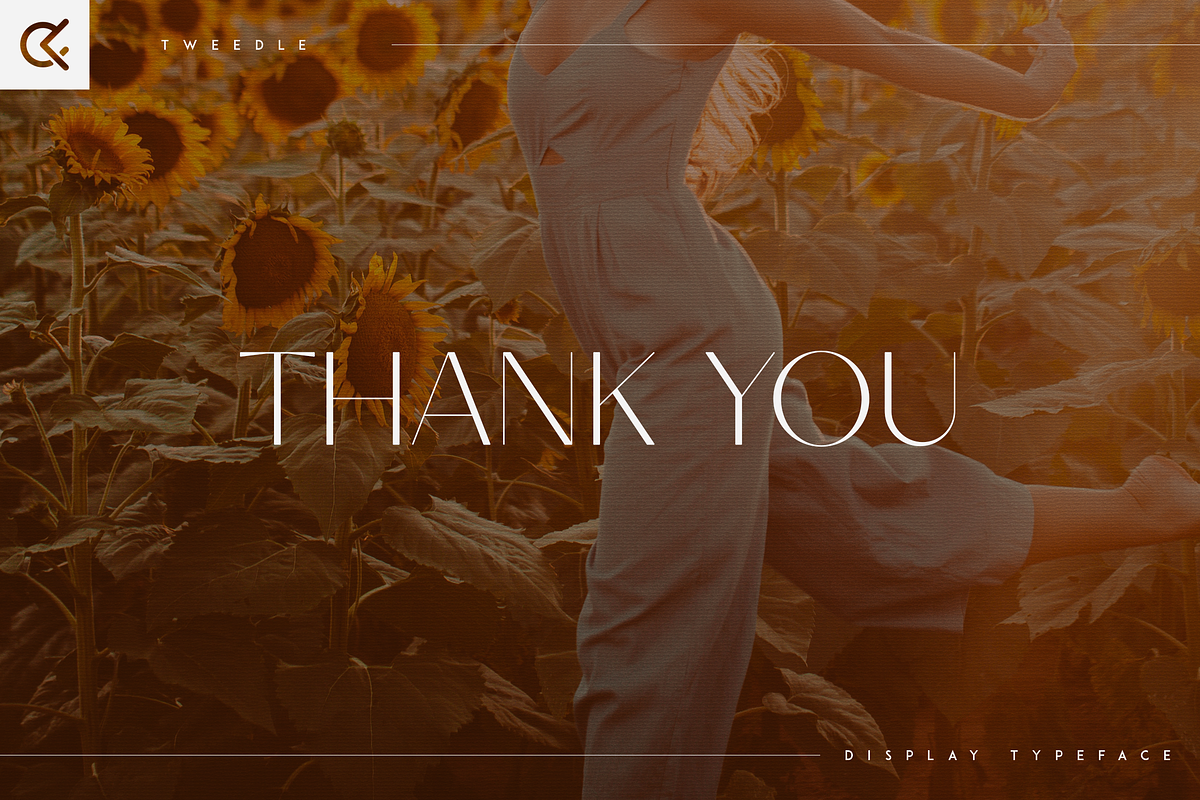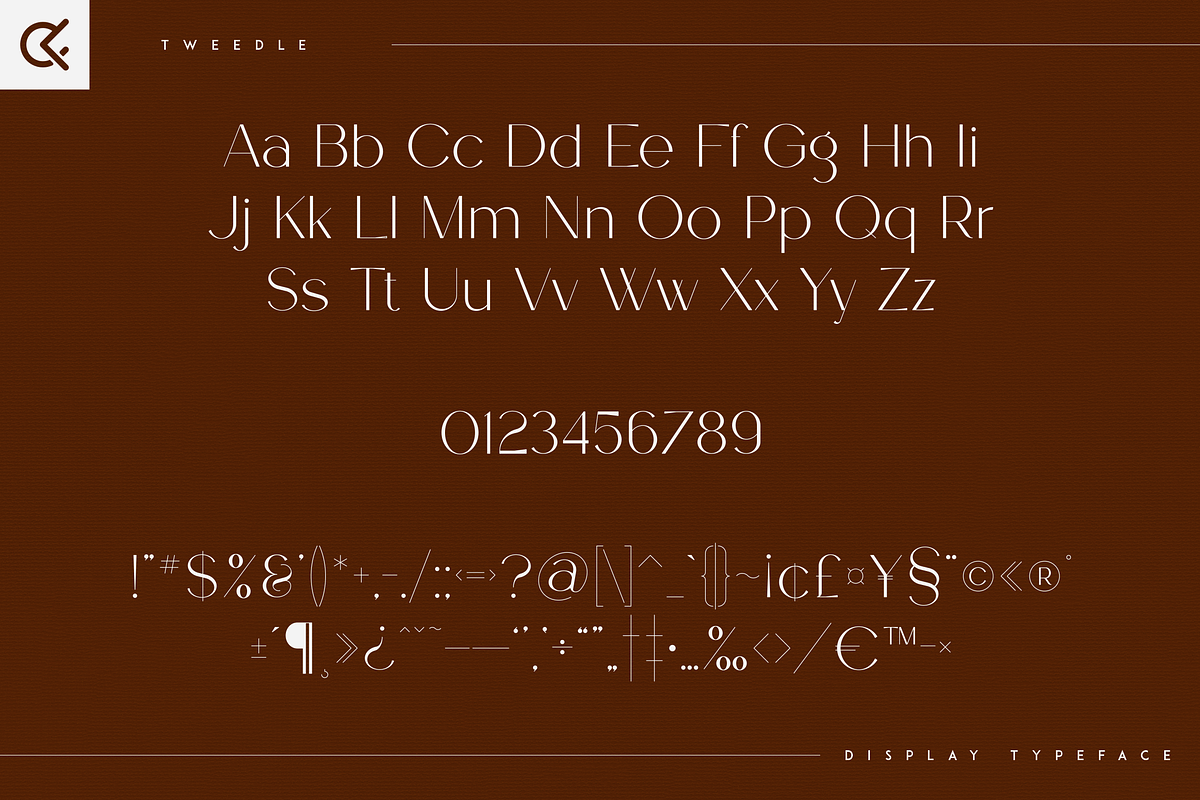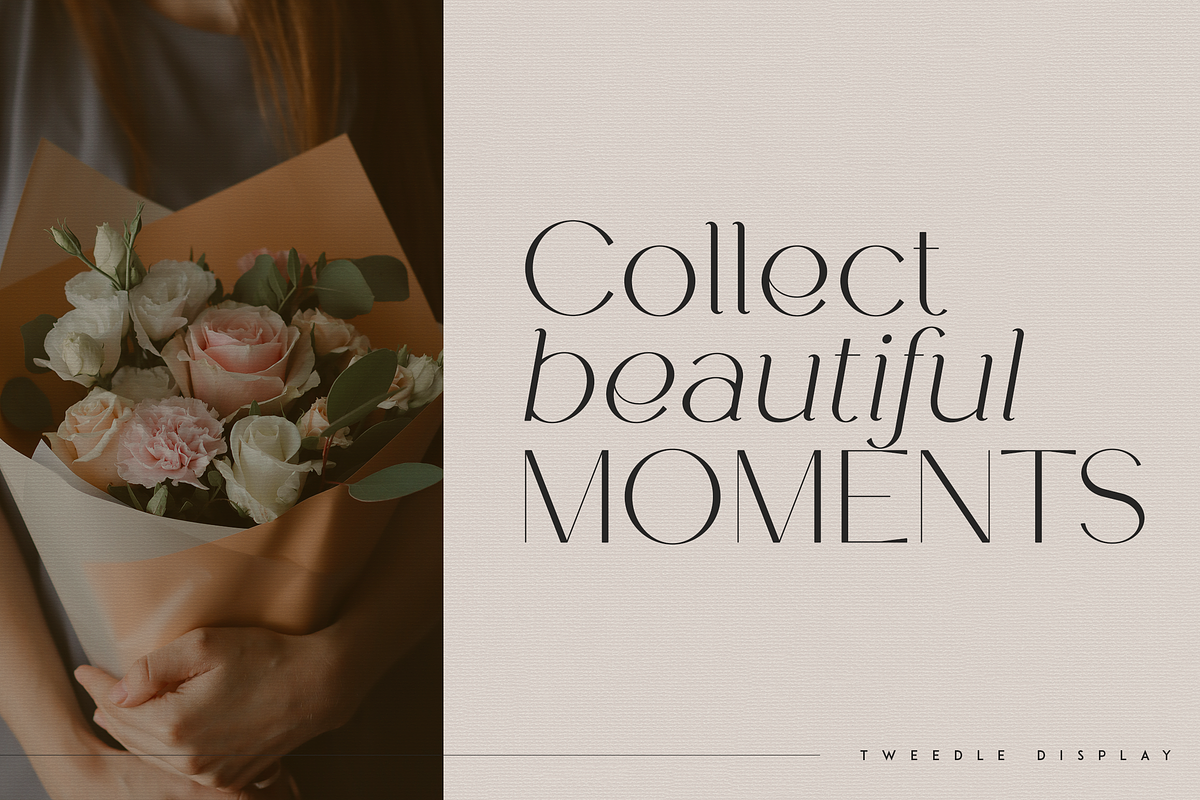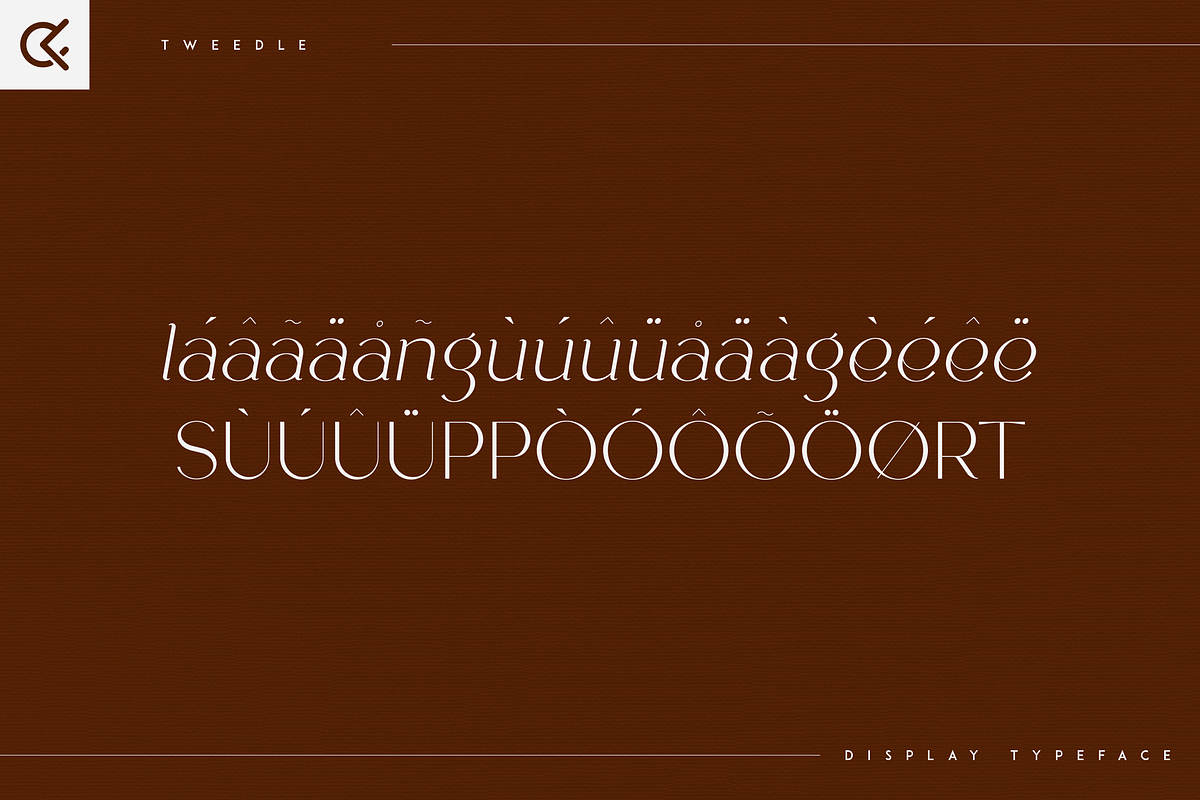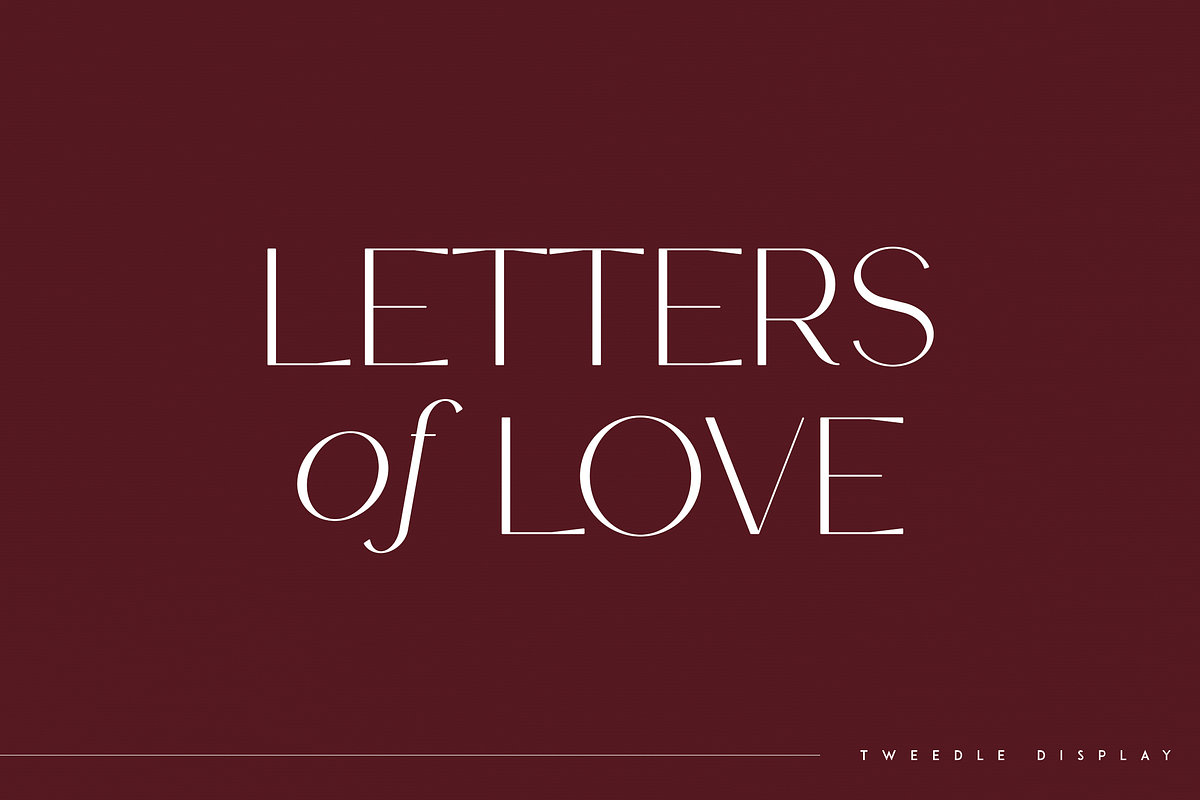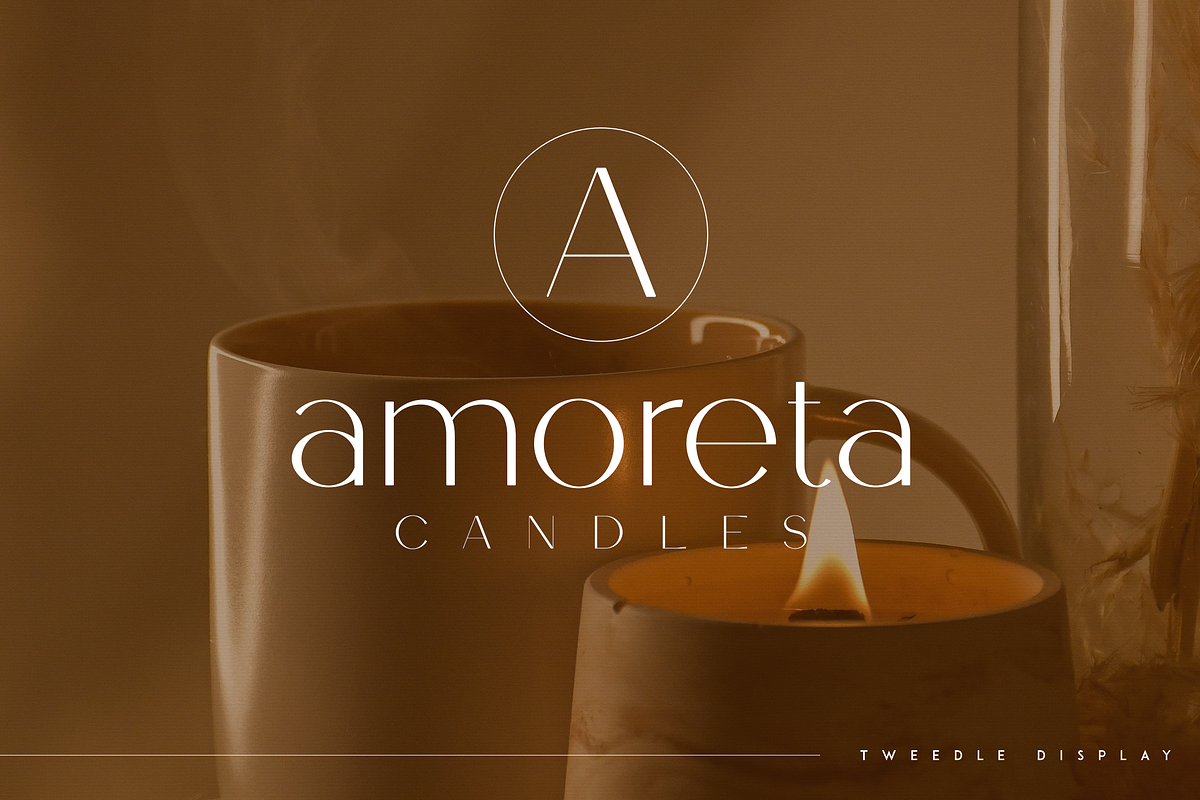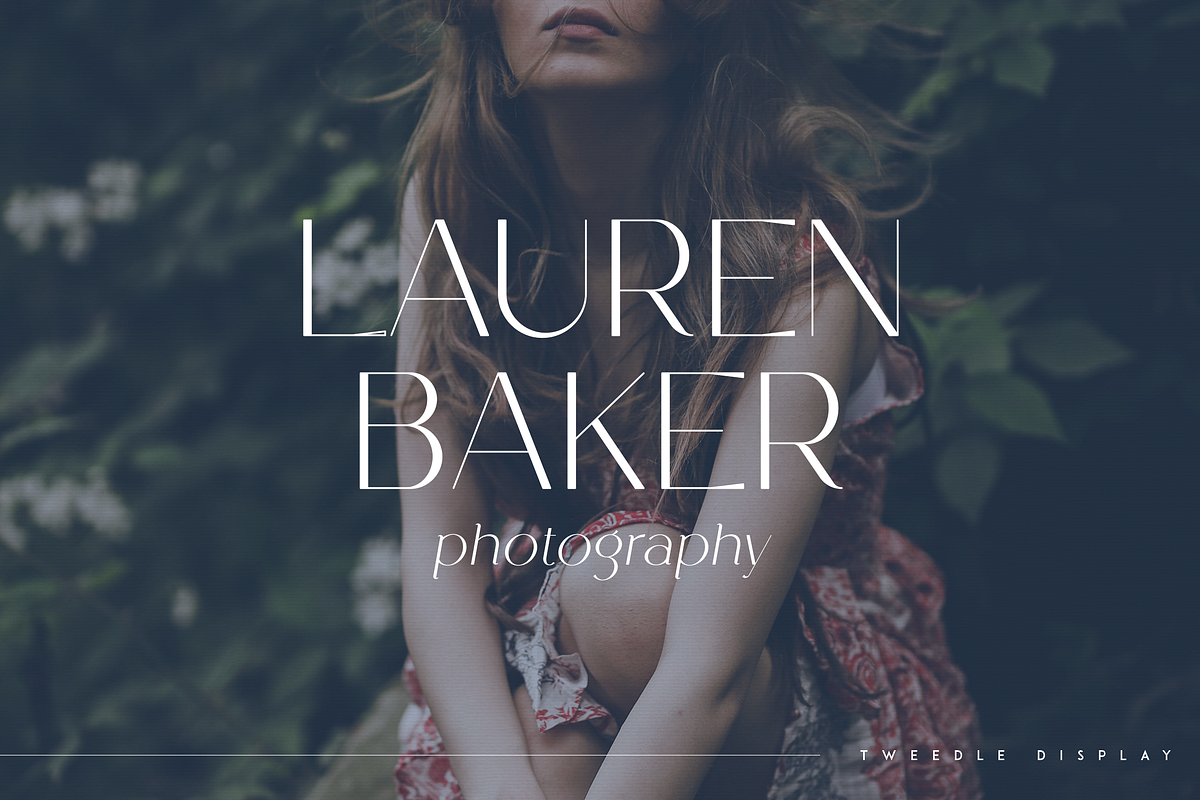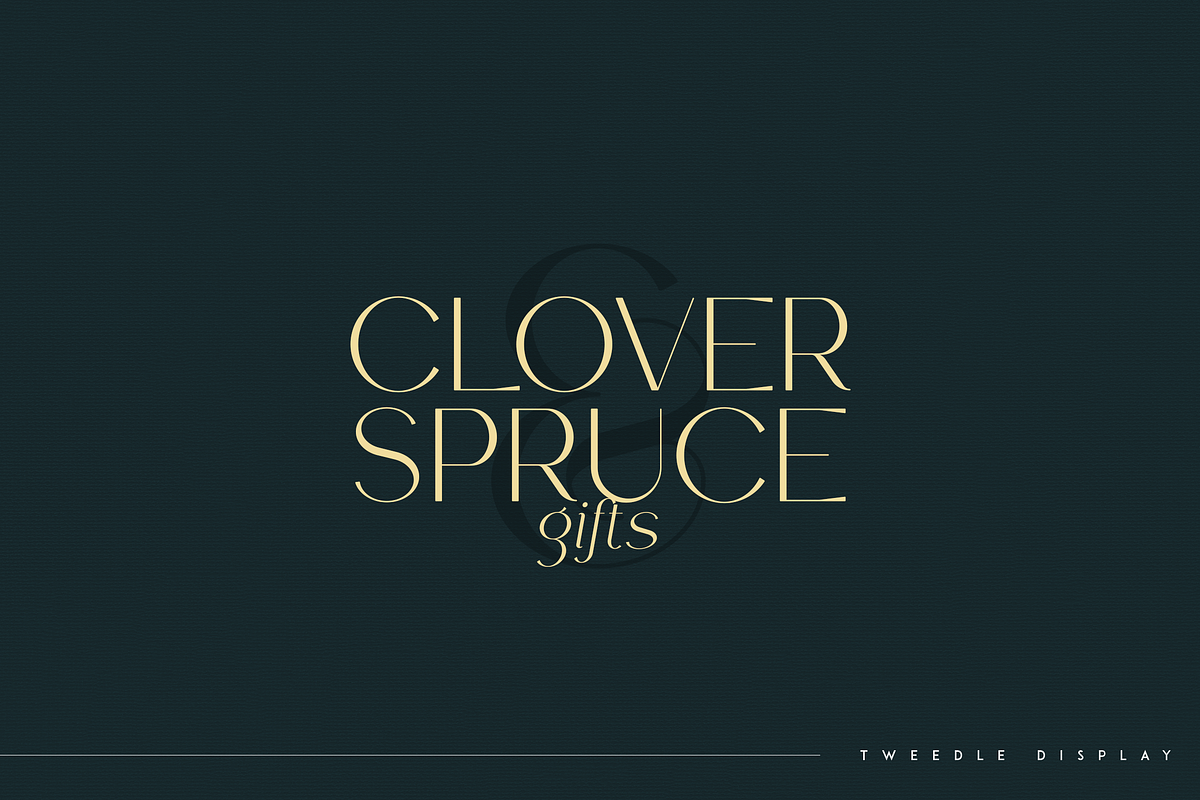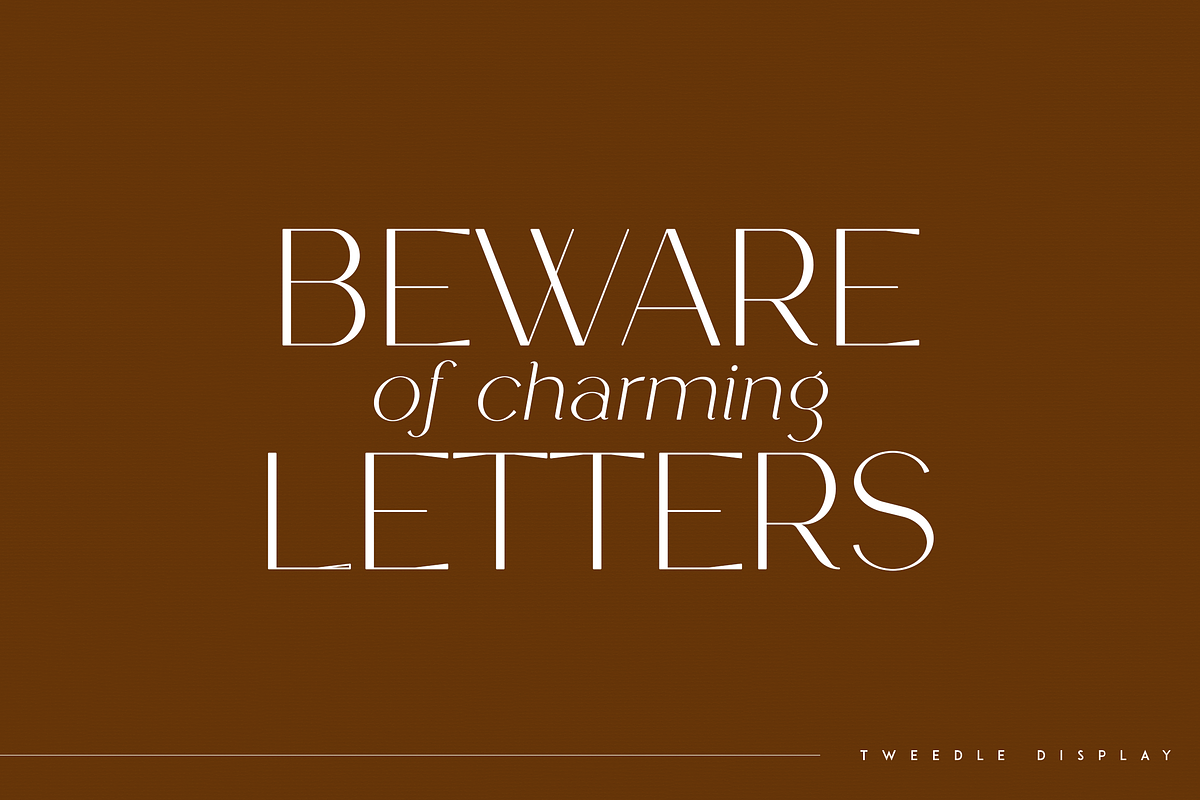
Tweedle - Display Typeface
Introducing Tweedle - Display Typeface
Tweedle is creative and elegant typeface loaded with 3 fonts and multilingual support. It's a very versatile font that works great in large and small sizes.
This font is perfect for branding projects, home-ware designs, product packaging, magazine headers - or simply as a stylish text overlay to any background image.
- Uppercase, lowercase, numeral, punctuation & Symbol
- Regular, alternate and italic versions